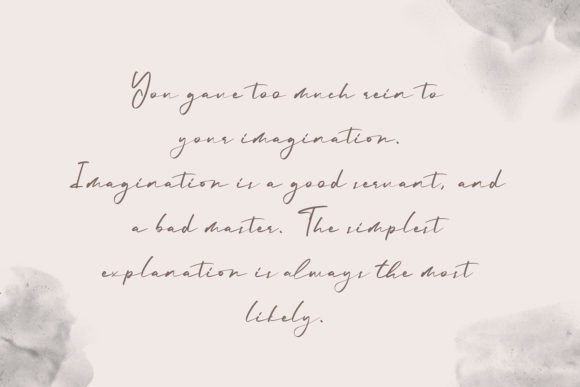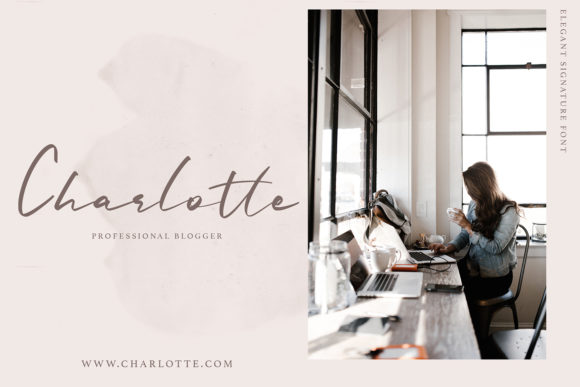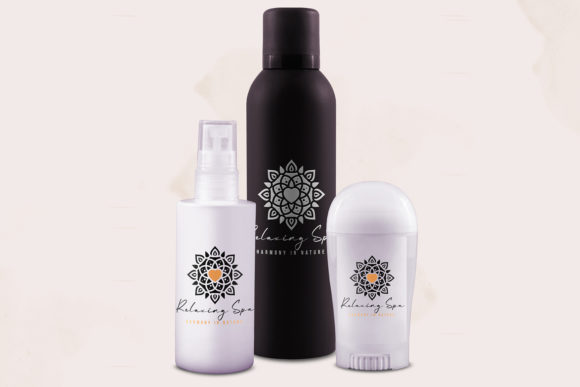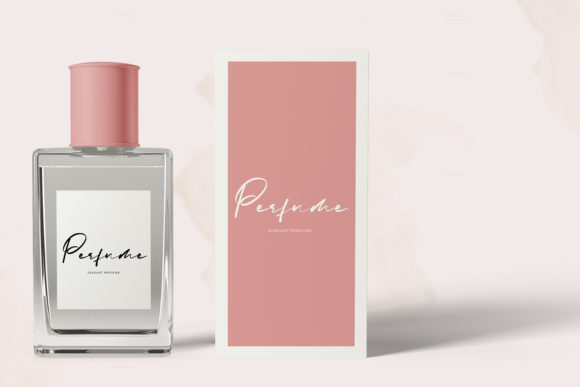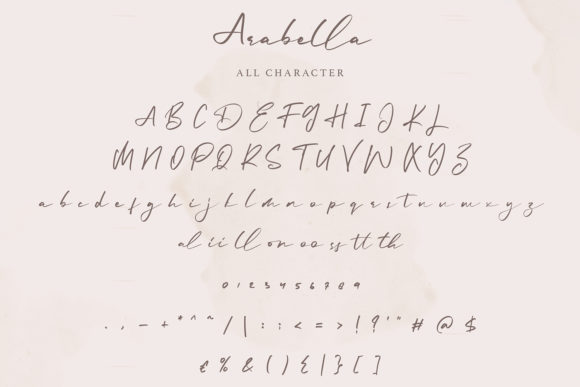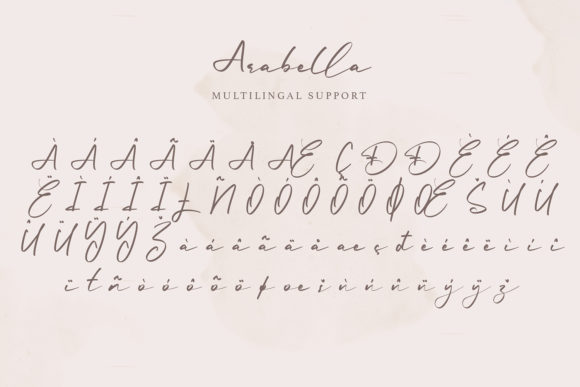
Arabella Font: A Timeless Script Font for Elegant Designs
Arabella font is a beautiful and elegant script font that has captured the hearts of designers and crafters alike. This stunning font is a stylish homage to classic calligraphy, featuring a varying baseline, smooth lines, gorgeous glyphs, and stunning alternates. In this article, we’ll dive into the world of Arabella font, exploring its features, uses, and benefits for designers and crafters.
The Charm of Arabella Font
Arabella font feels equally charming and elegant, making it perfect for a wide range of design projects. Whether you’re creating a wedding invitation, a logo, or a branding material, Arabella font is sure to add a touch of sophistication and glamour. Its classic calligraphy style evokes a sense of nostalgia and tradition, while its modern twist makes it fresh and contemporary.
Key Features of Arabella Font
- Varying Baseline: Arabella font features a varying baseline, which gives it a natural and organic feel. This feature makes the font look like it was written by hand, adding a personal touch to your designs.
- Smooth Lines: The font boasts smooth lines that flow effortlessly, creating a beautiful and harmonious visual effect. This feature makes Arabella font perfect for designs that require a high level of elegance and sophistication.
- Gorgeous Glyphs: Arabella font comes with a range of gorgeous glyphs that add an extra layer of depth and interest to your designs. These glyphs can be used to create intricate patterns, borders, and other design elements.
- Stunning Alternates: The font also features stunning alternates that allow you to add variation and uniqueness to your designs. These alternates can be used to create different versions of a word or phrase, making your designs more dynamic and engaging.
Uses of Arabella Font
Arabella font is a versatile font that can be used for a wide range of design projects, including:
- Wedding Invitations: Arabella font is perfect for wedding invitations, adding a touch of elegance and sophistication to your designs.
- Branding and Logo Design: The font can be used to create stunning branding materials, including logos, business cards, and letterheads.
- Packaging Design: Arabella font can be used to create beautiful packaging designs, including labels, tags, and packaging inserts.
- Digital Design: The font can be used for digital designs, including social media graphics, blog posts, and website headers.
Benefits of Using Arabella Font
Using Arabella font in your designs offers a range of benefits, including:
- Unique and Elegant Look: Arabella font adds a unique and elegant touch to your designs, setting them apart from others.
- High Readability: The font is highly readable, making it perfect for designs that require a high level of legibility.
- Flexibility: Arabella font can be used for a wide range of design projects, making it a versatile addition to your font library.
In conclusion, Arabella font is a stunning script font that offers a unique and elegant look to your designs. Its classic calligraphy style, smooth lines, gorgeous glyphs, and stunning alternates make it perfect for a wide range of design projects. Whether you’re a designer or crafter, Arabella font is a great addition to your font library, offering a high level of flexibility, readability, and ease of use. So why not give Arabella font a try and see how it can elevate your designs to the next level?